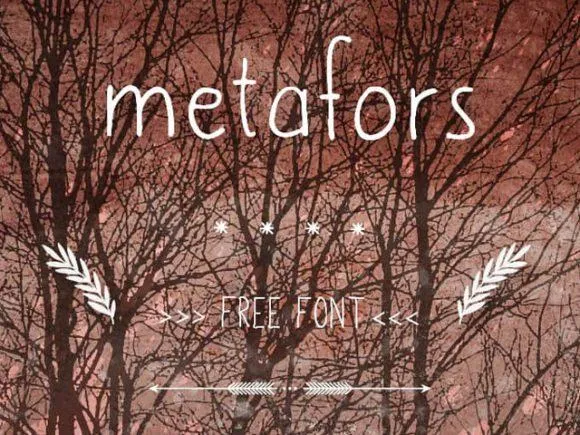
Introducing you to the absolutely beautiful free metafors a clumsy handwriting font. Go give some love to Freebies Bug for creating this top-notch font. Amaze your fellow designers and create stunning designs with this fancy font.